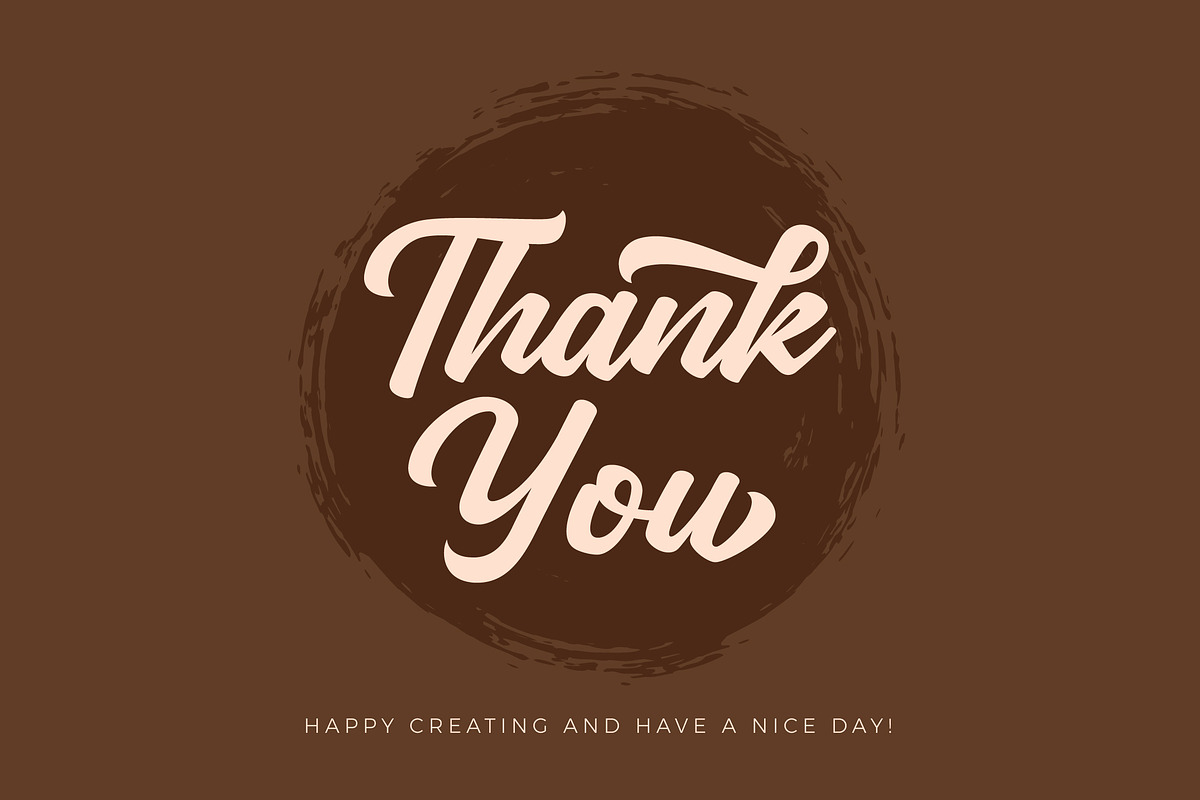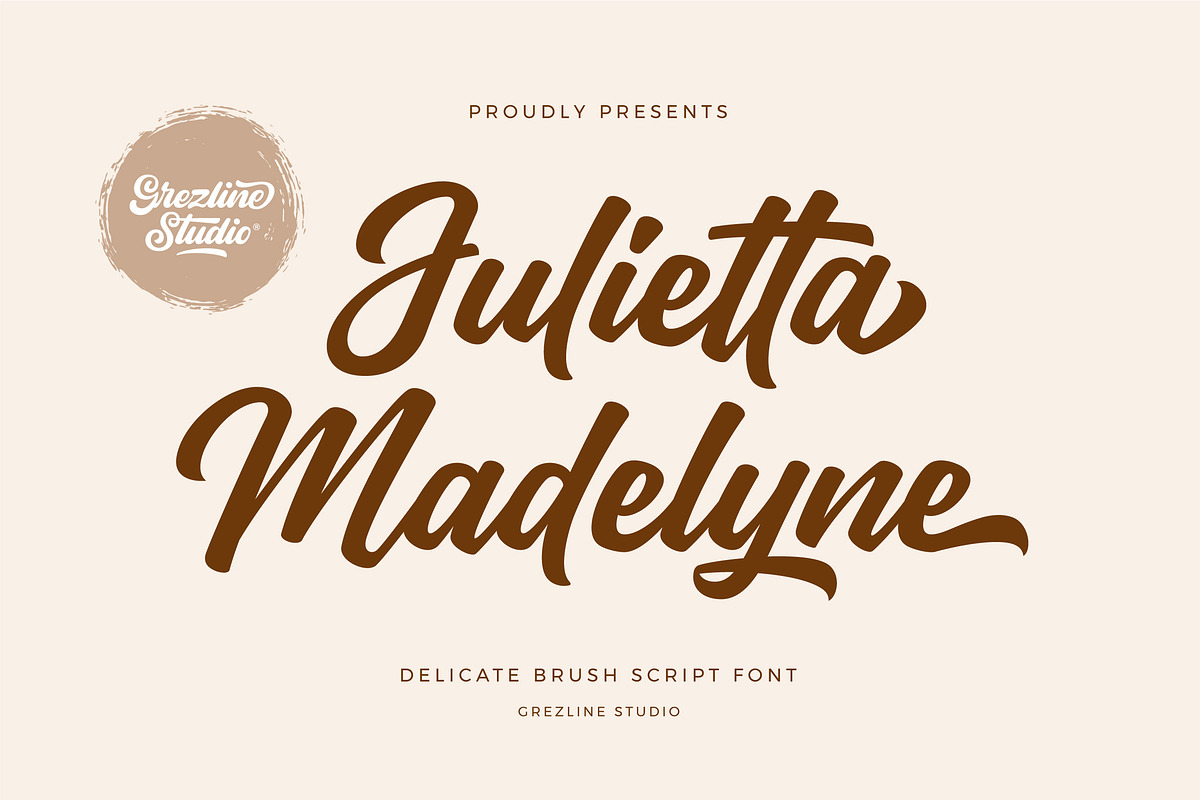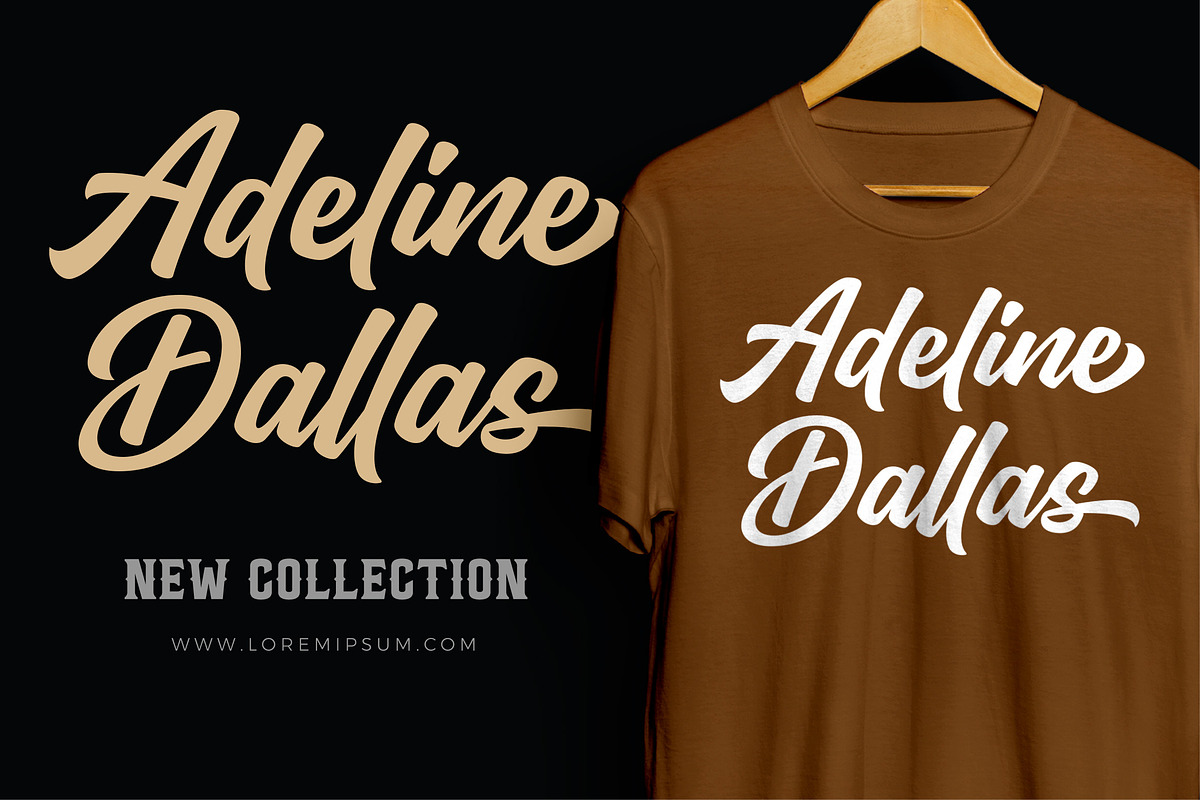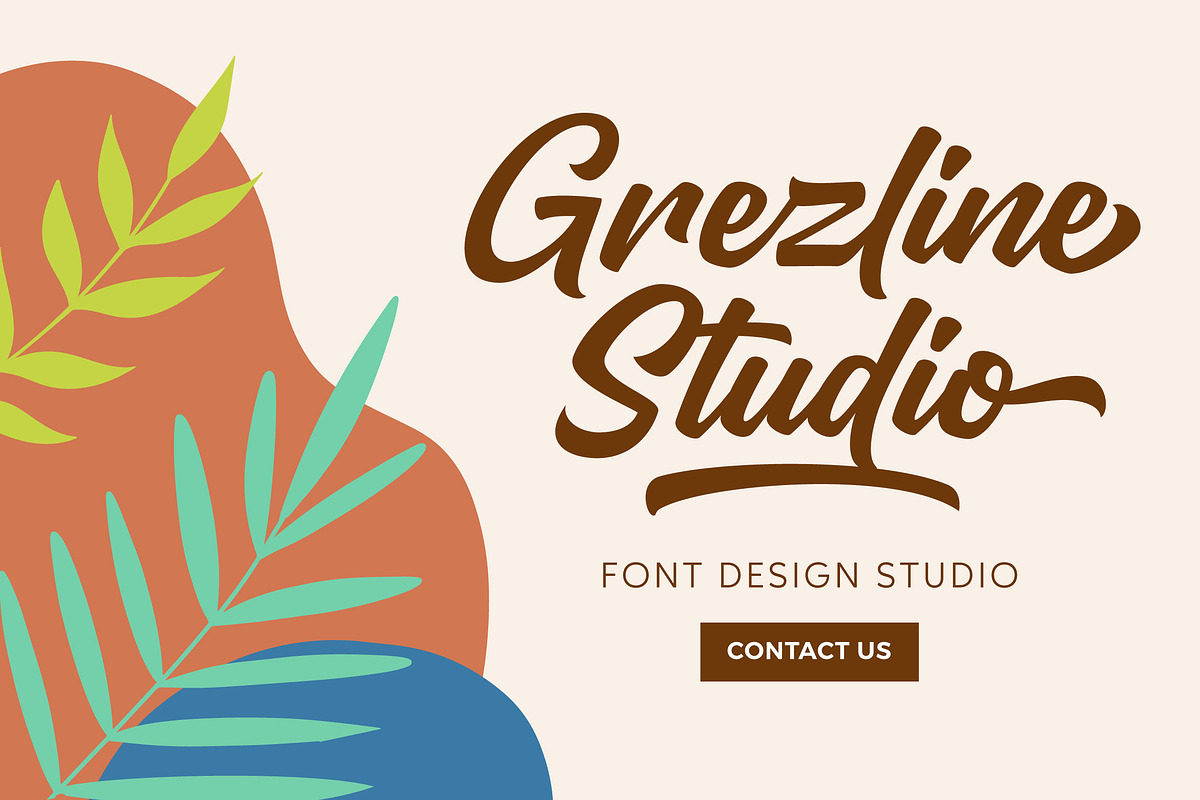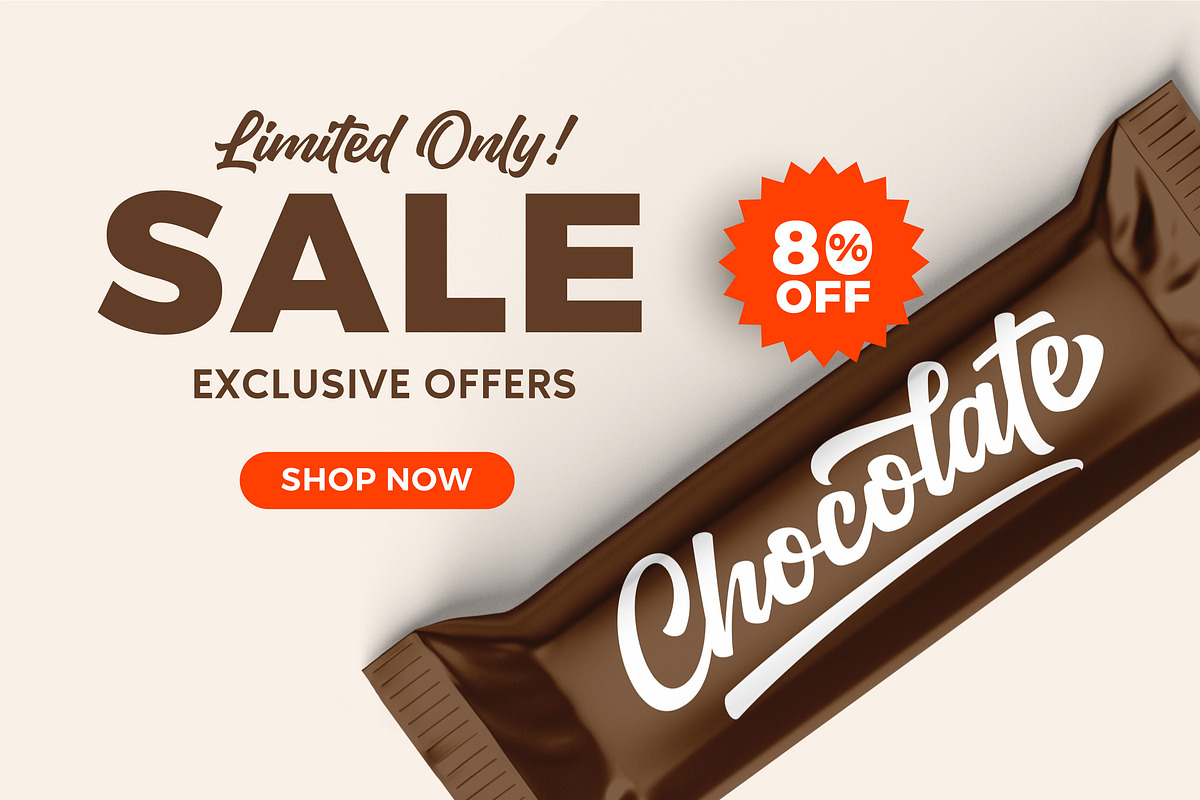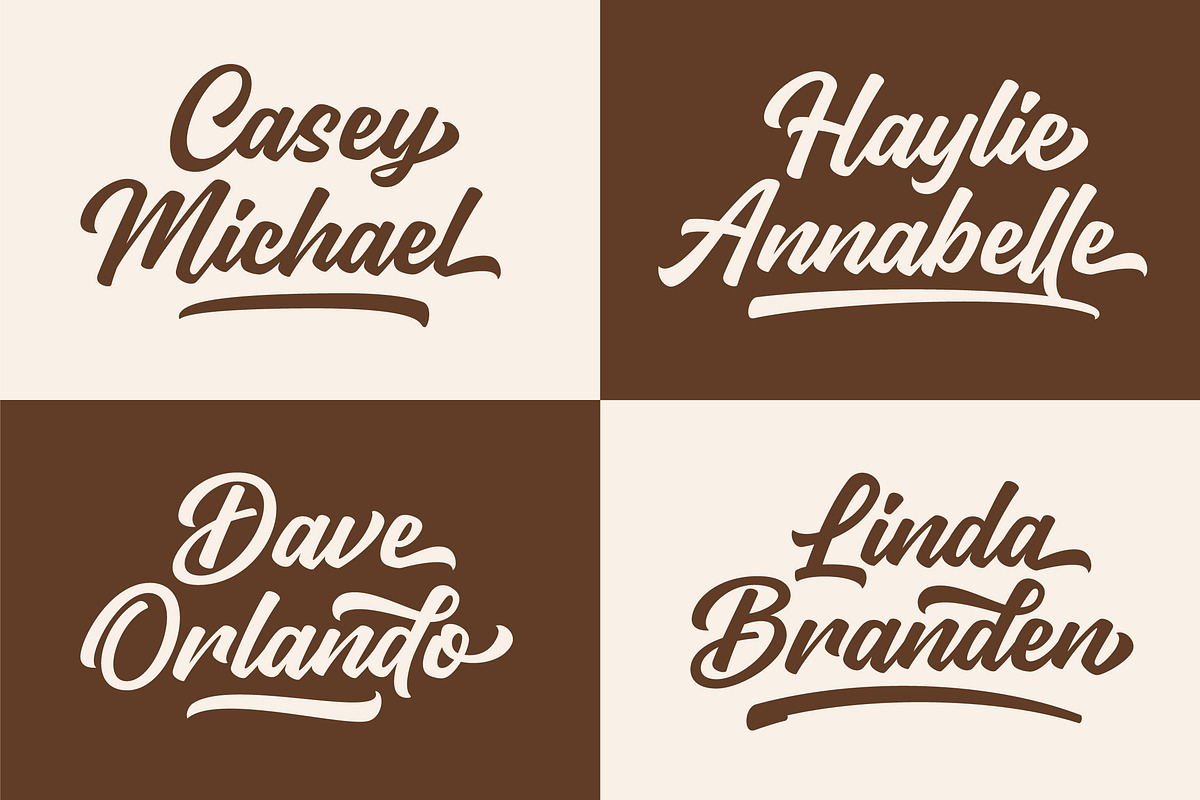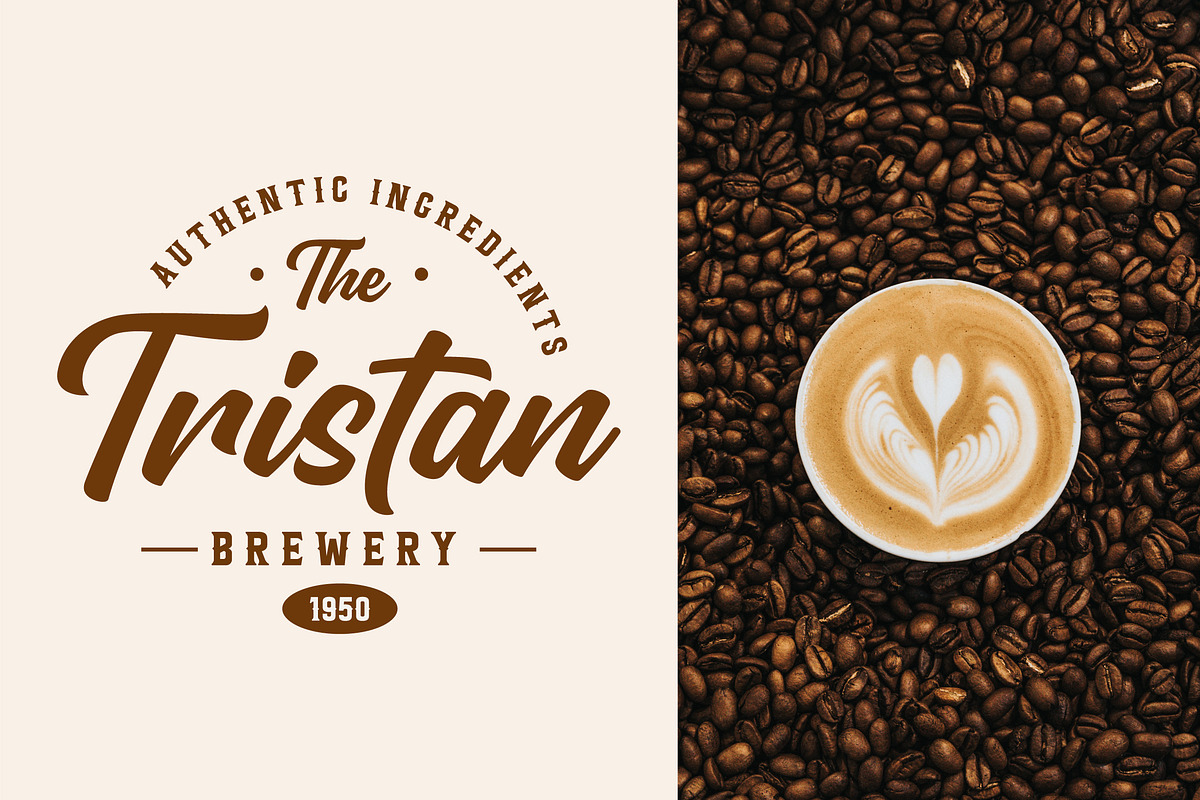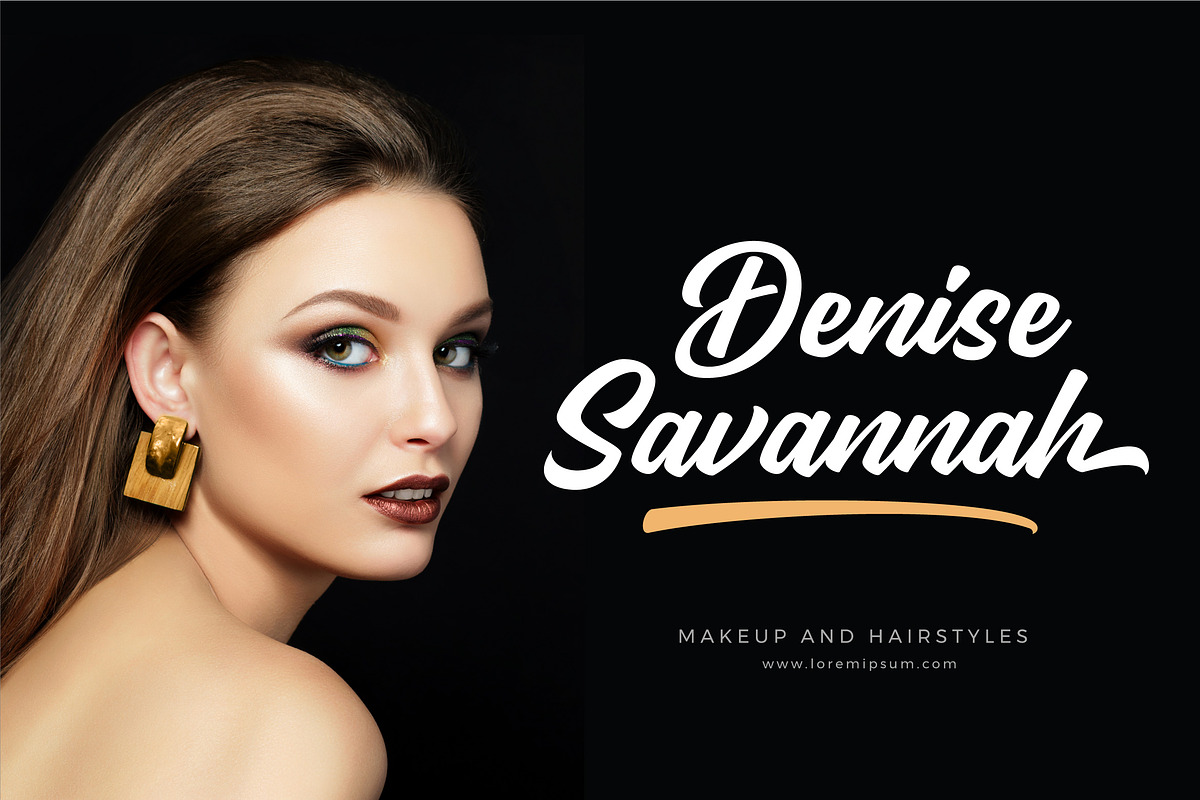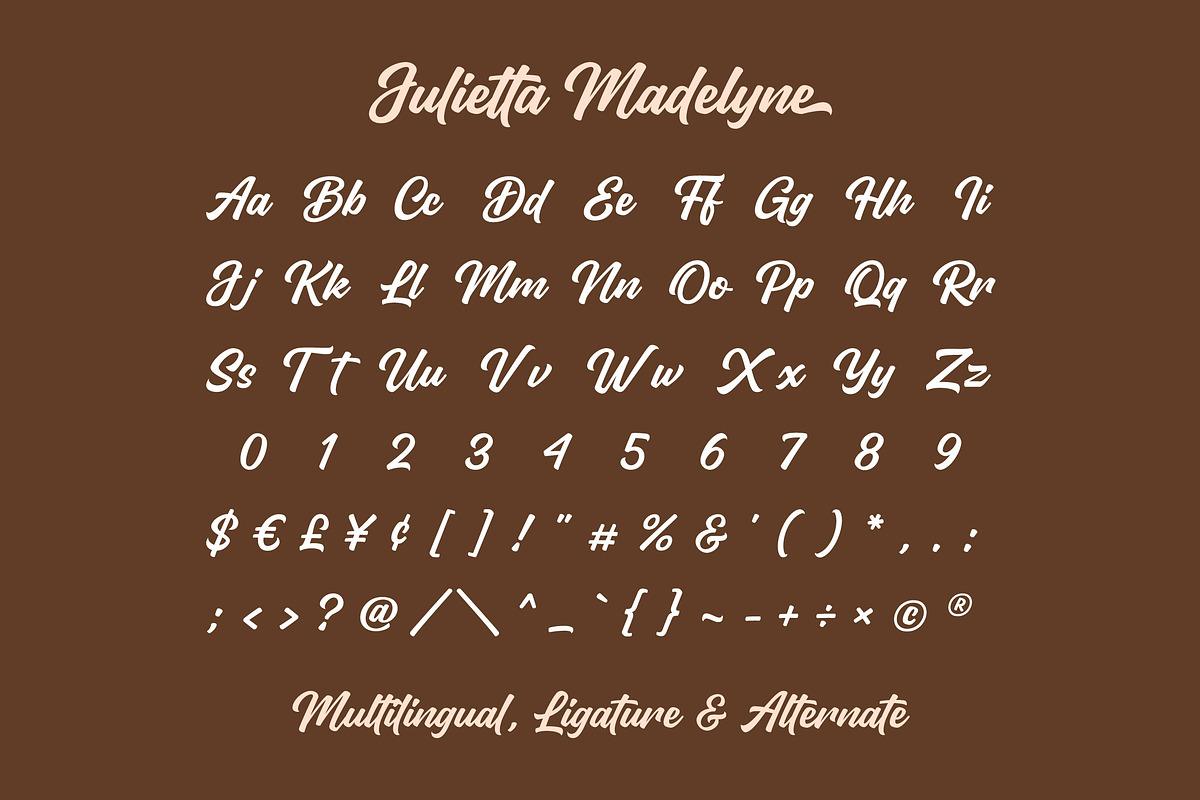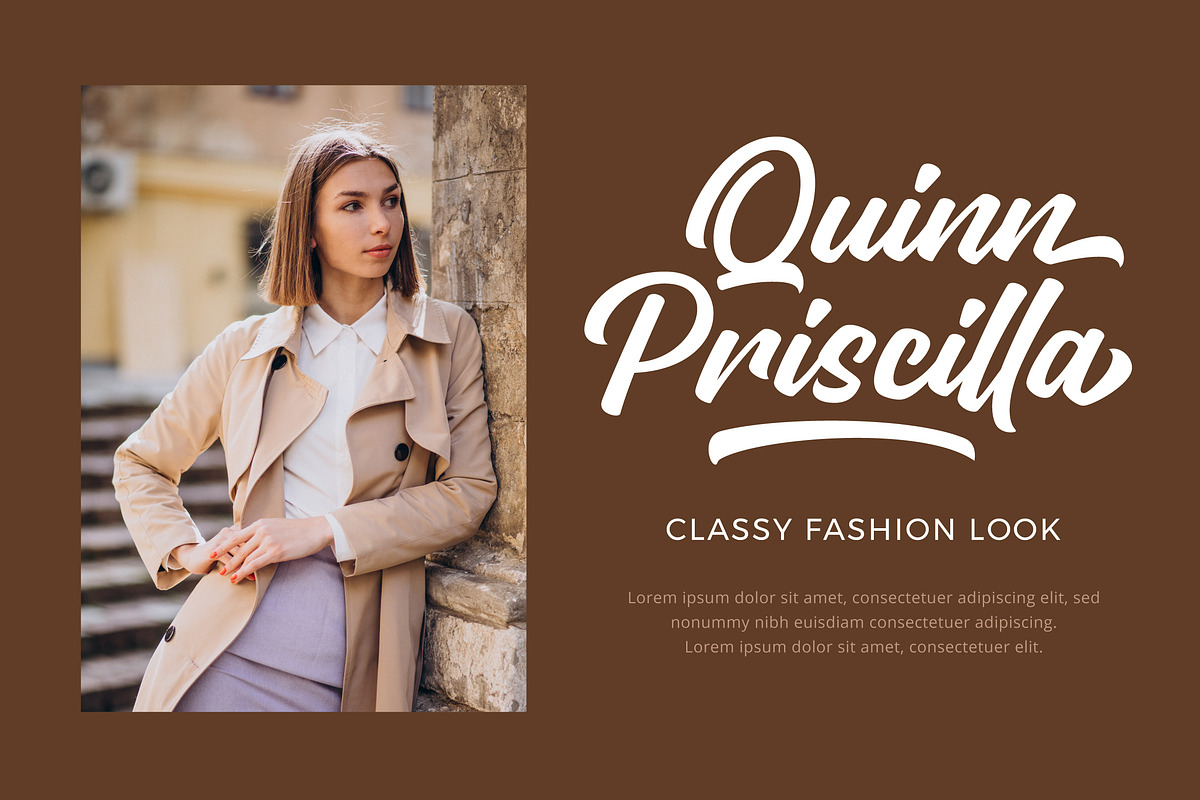
Julietta Madelyne - Delicate Script
Julietta Madelyne is a delicate brush script font. You can use this font in a wide range of works such as logos, covers, posters, quotes, product packaging, merchandise, social media and much more! This font is already PUA encoded so you can access the alternate glyph very easily.
- Alternate Glyphs
- Multilingual Language